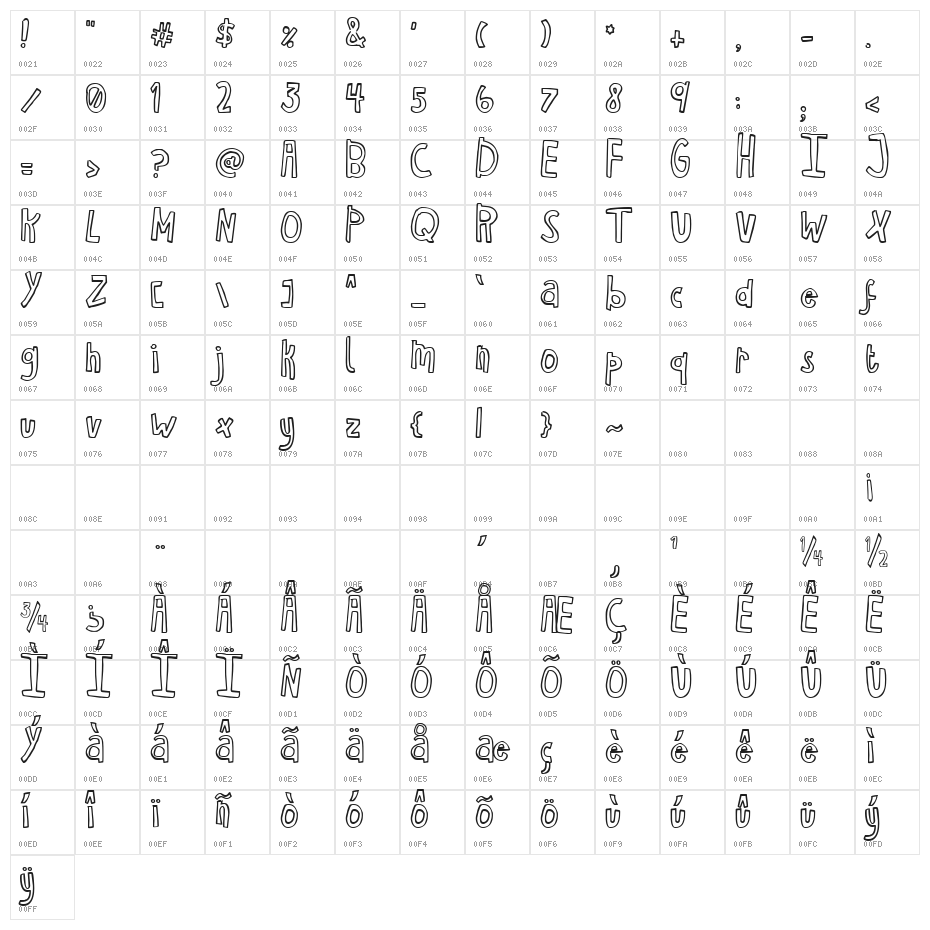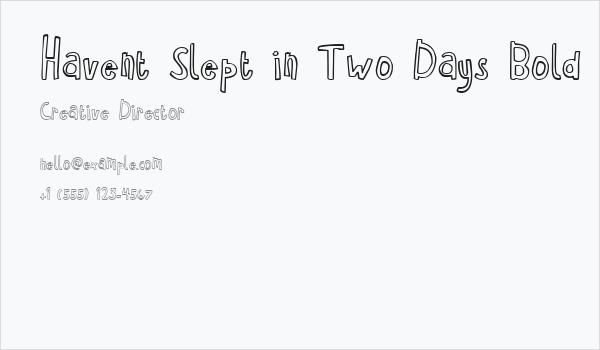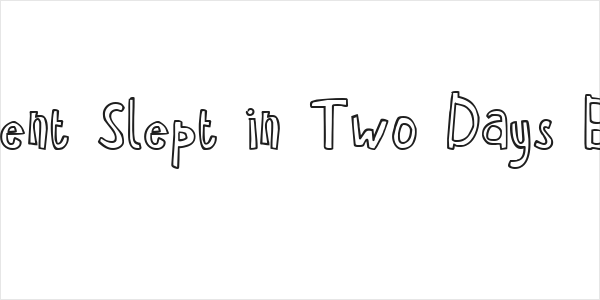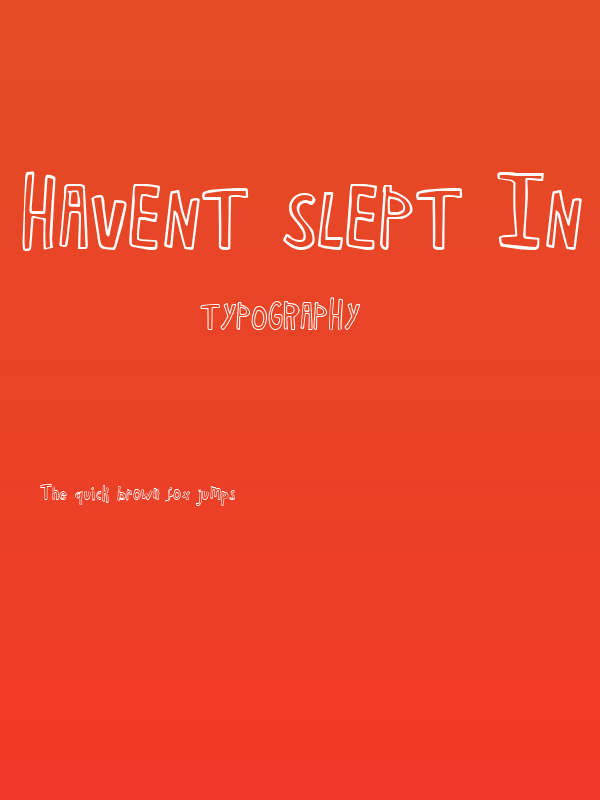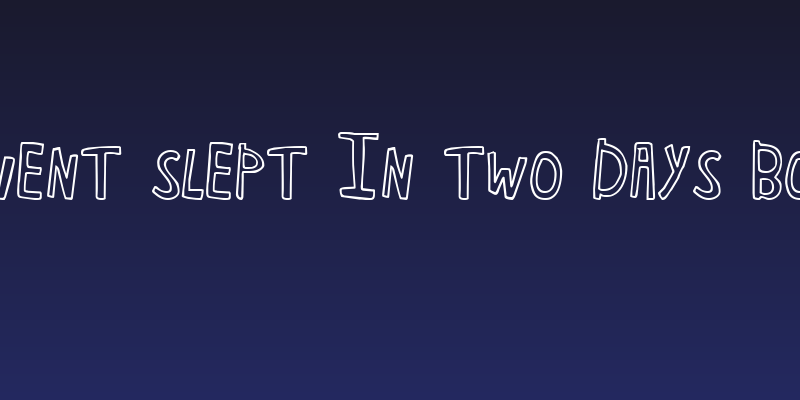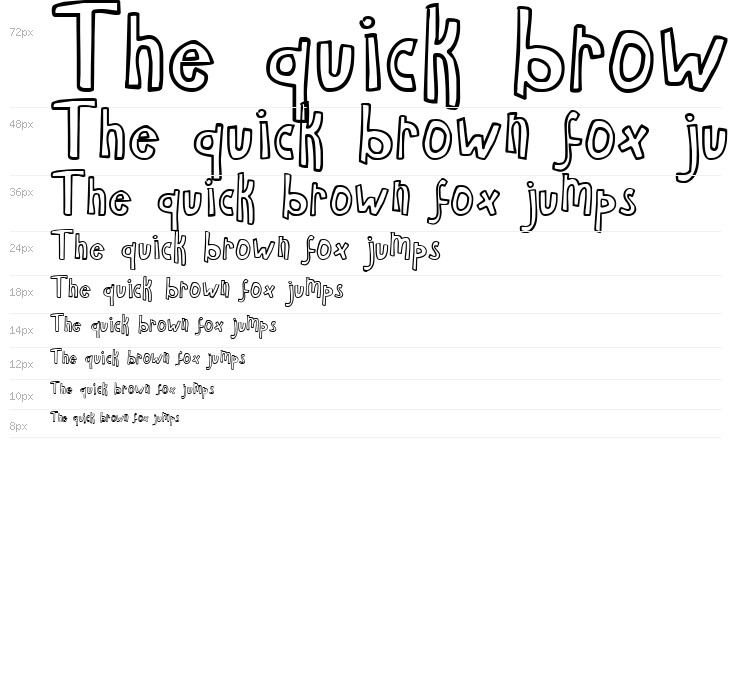
Havent Slept in Two Days Bold Font
Havent Slept in Two Days Bold Description
This font features a playful and quirky design with a hand-drawn appearance. The letters are outlined with a bold, uneven stroke, giving them a cartoonish and informal feel. The uppercase and lowercase characters maintain a consistent style, with rounded edges and irregular shapes that add to the whimsical nature. Numbers and special characters follow the same design principles, ensuring a cohesive look across all elements. The font's unique style makes it stand out, perfect for projects that require a fun and lighthearted touch.
Proposed ProjectsIdeal for children's books, comic strips, playful branding, and creative posters.